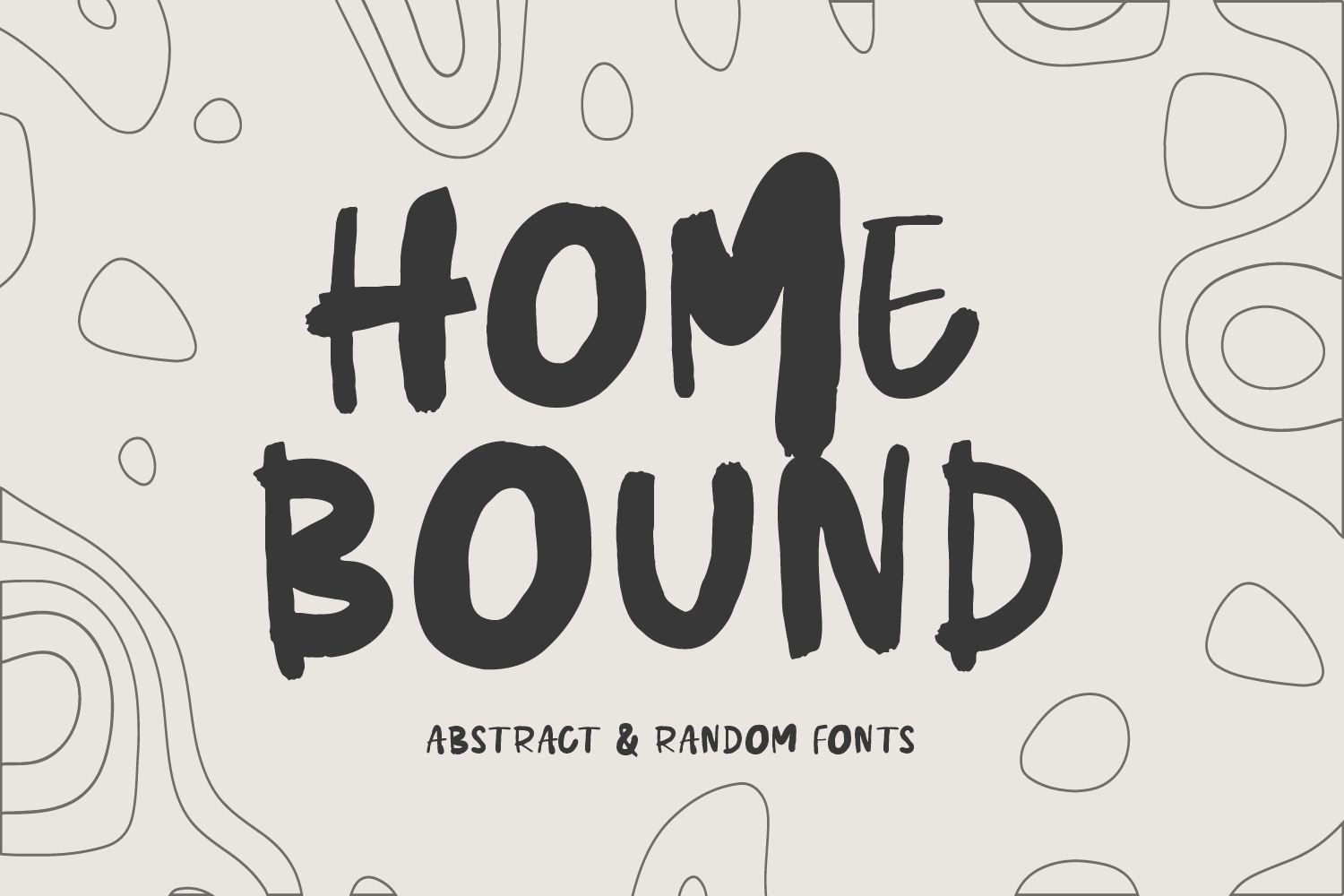
Homebound - Abstract Fonts
Hello, introducing the new abstract & random fonts. It's called Homebound. Homebound is abstract font. comes with different shape. Good for your graphic, easy to read.